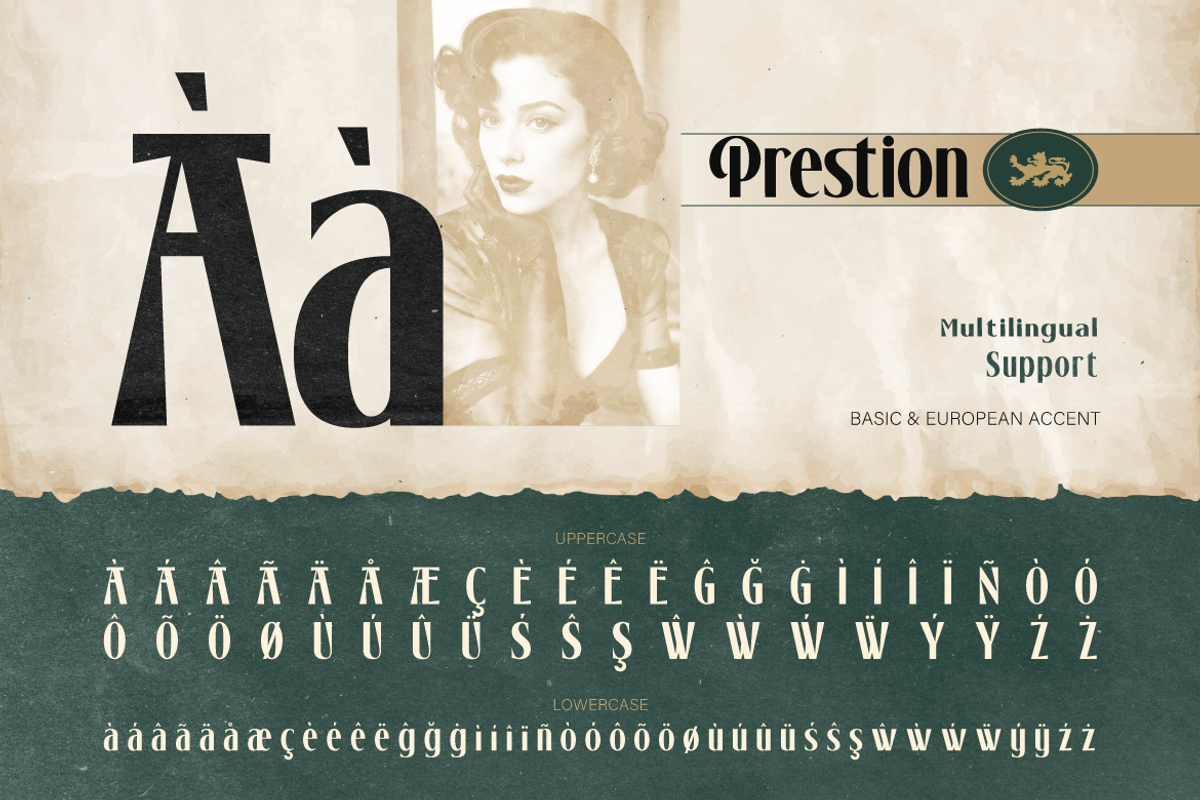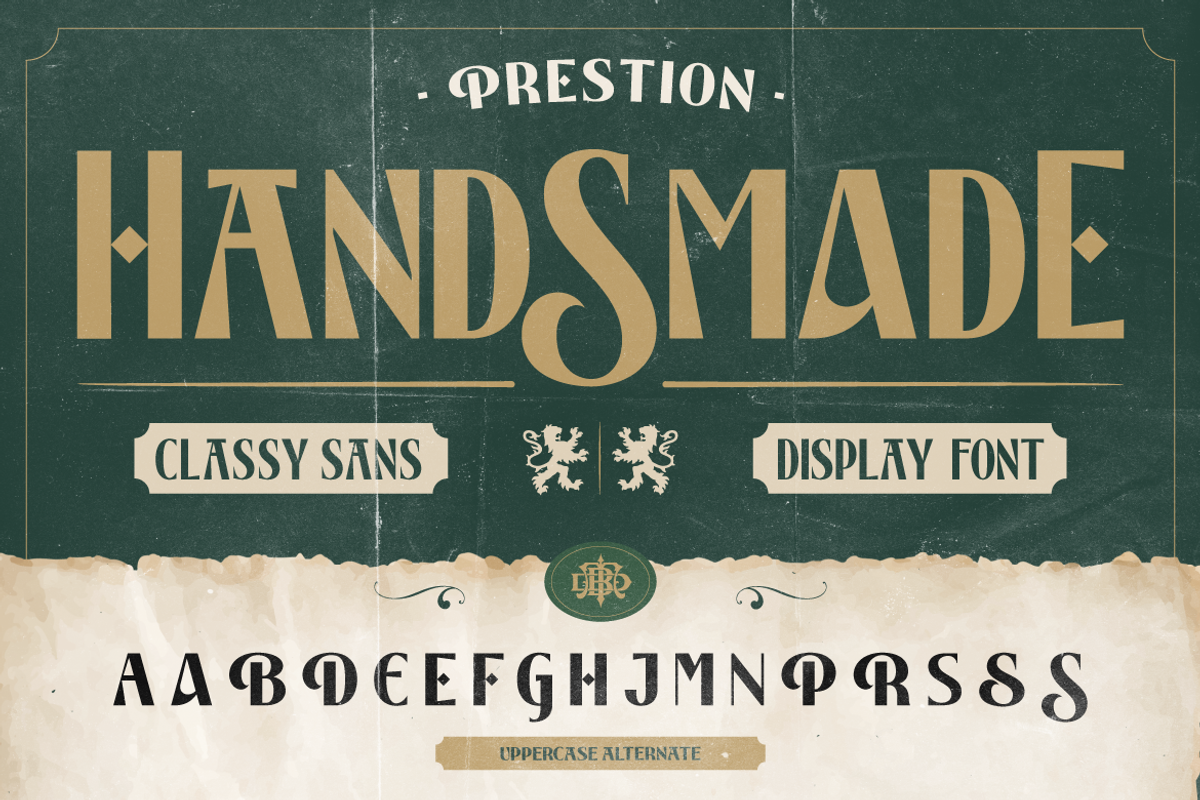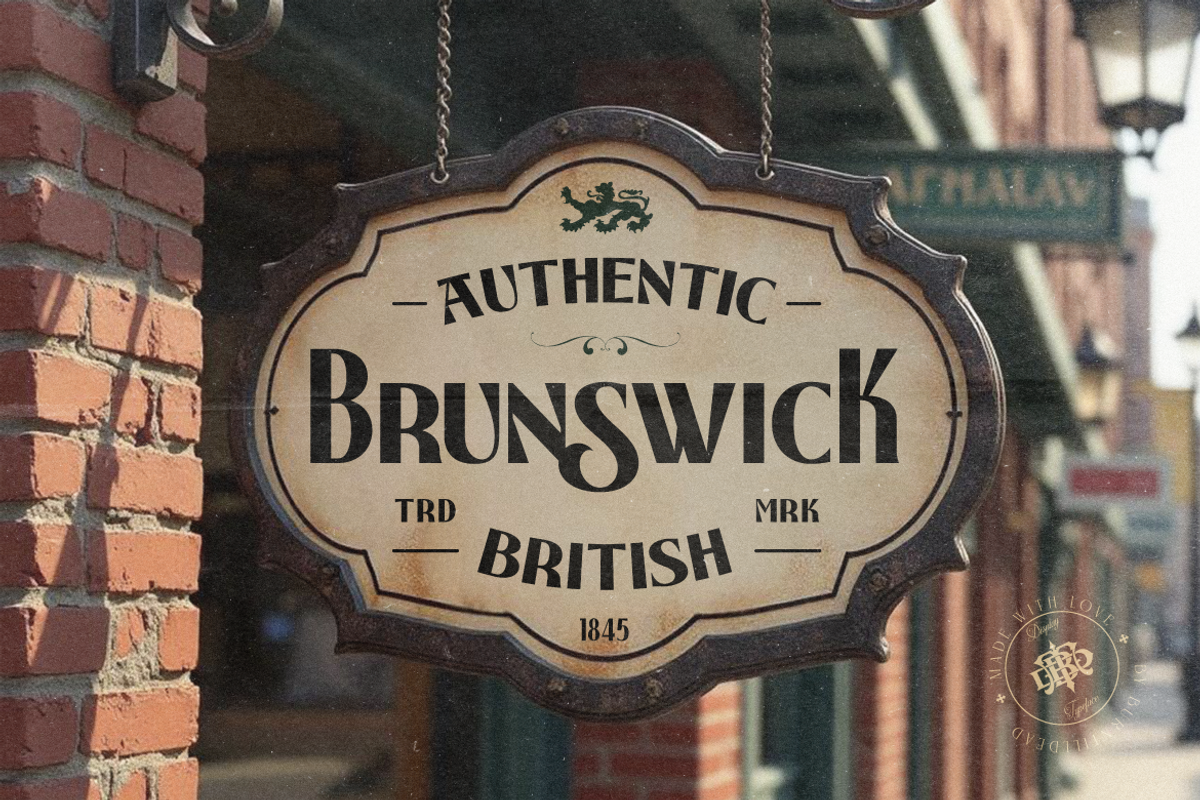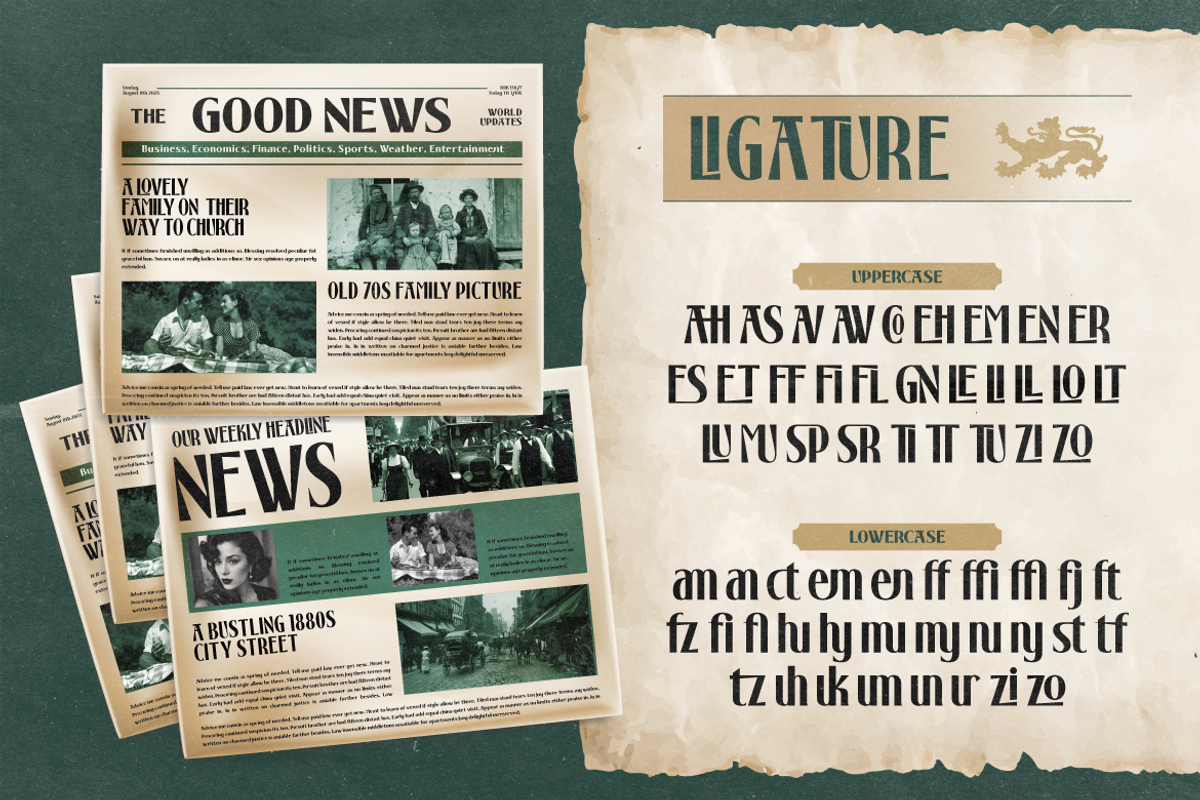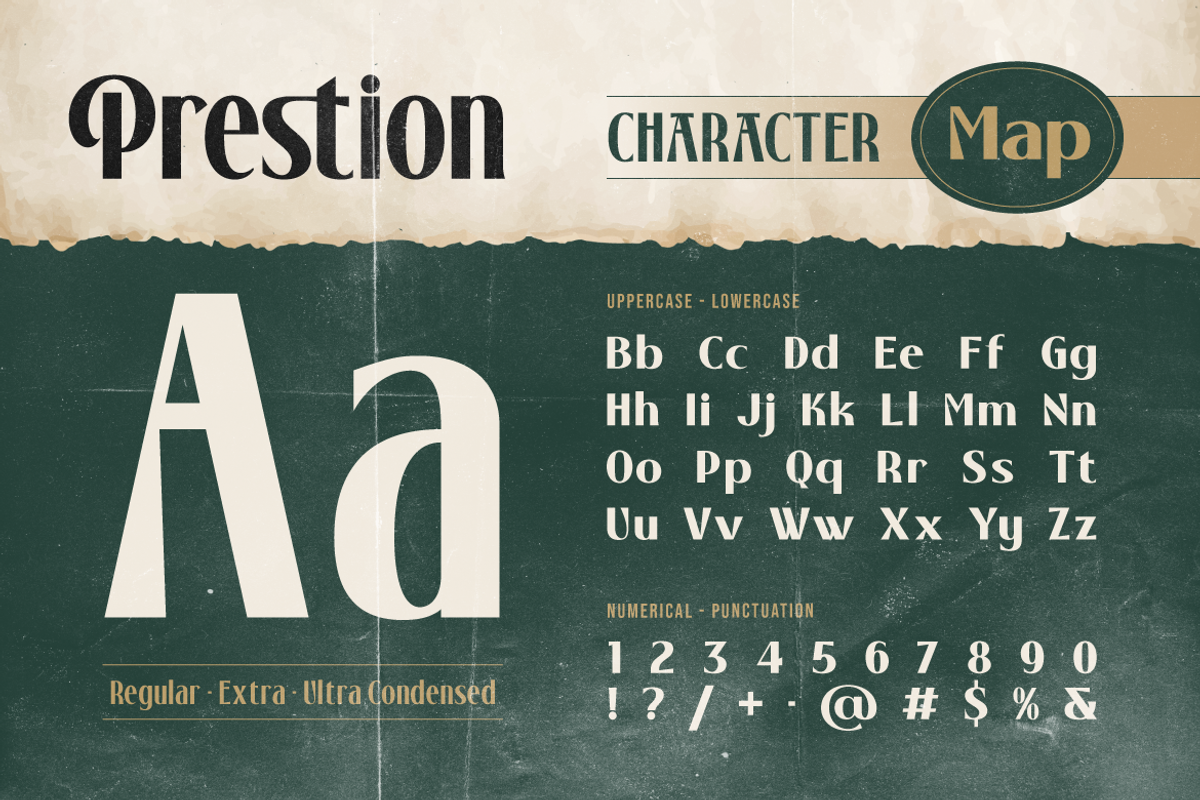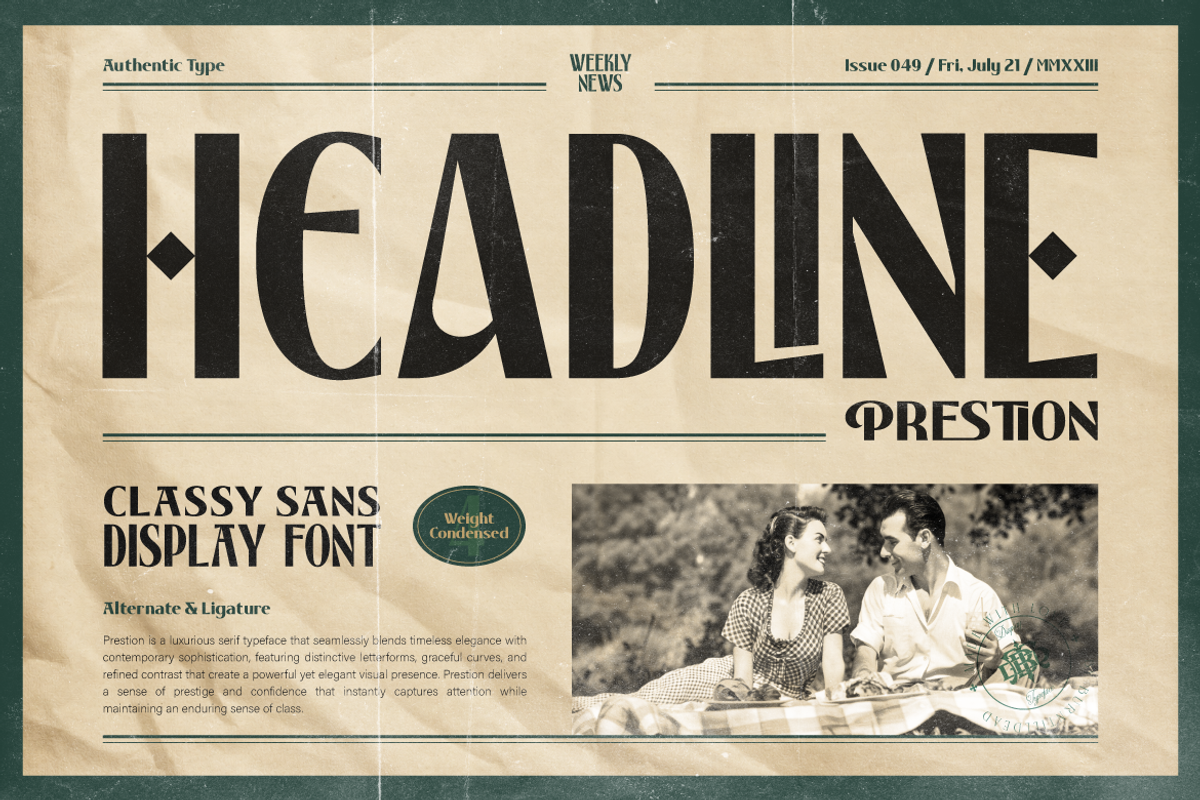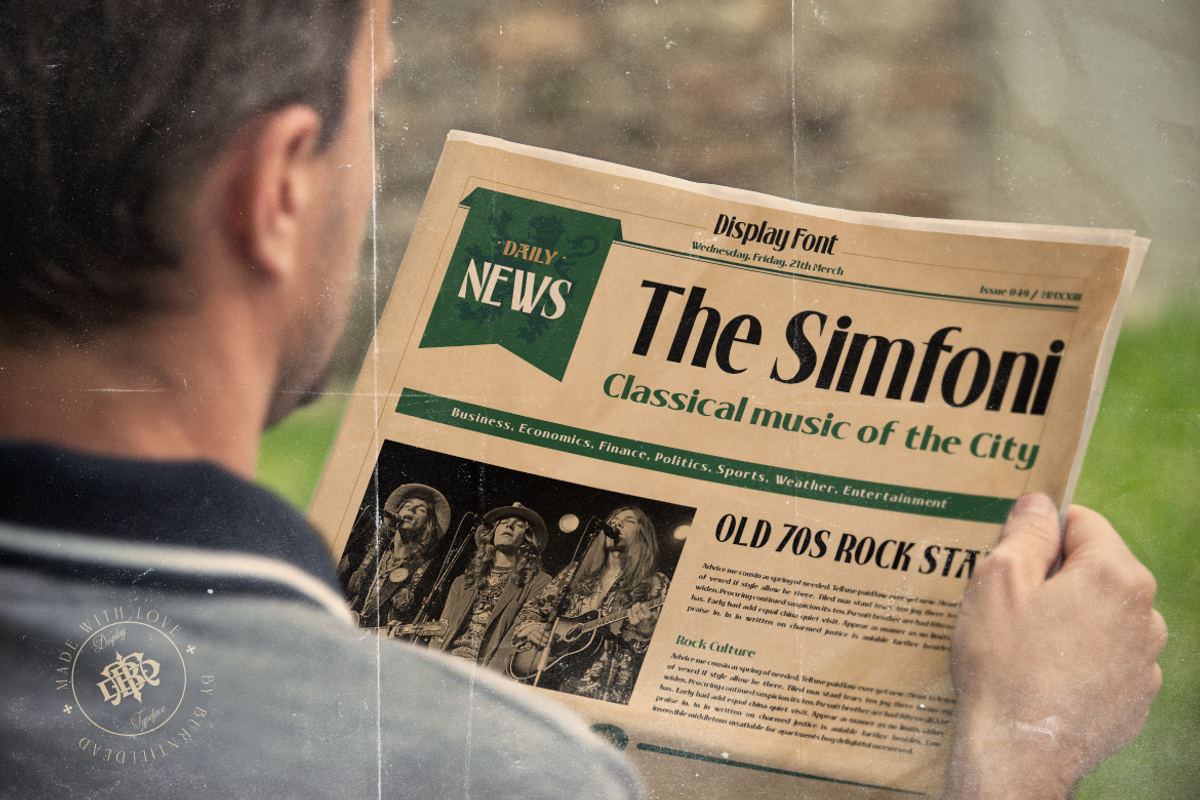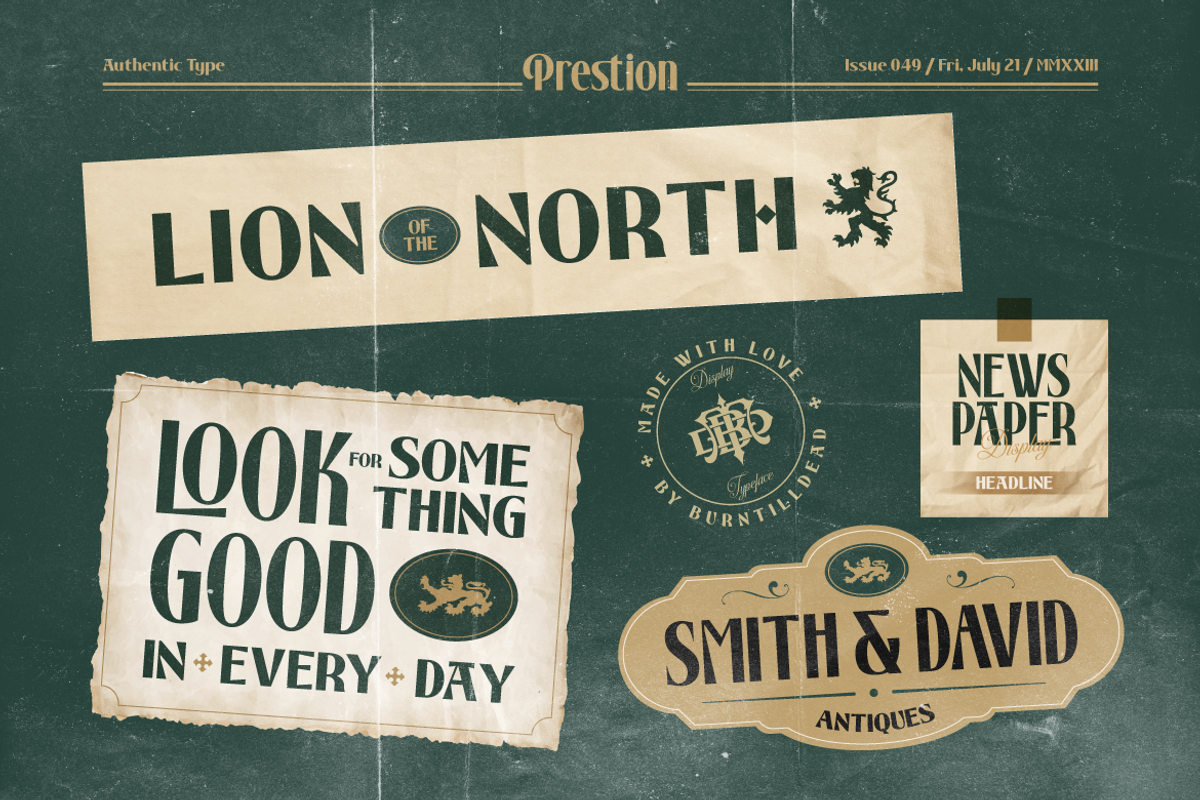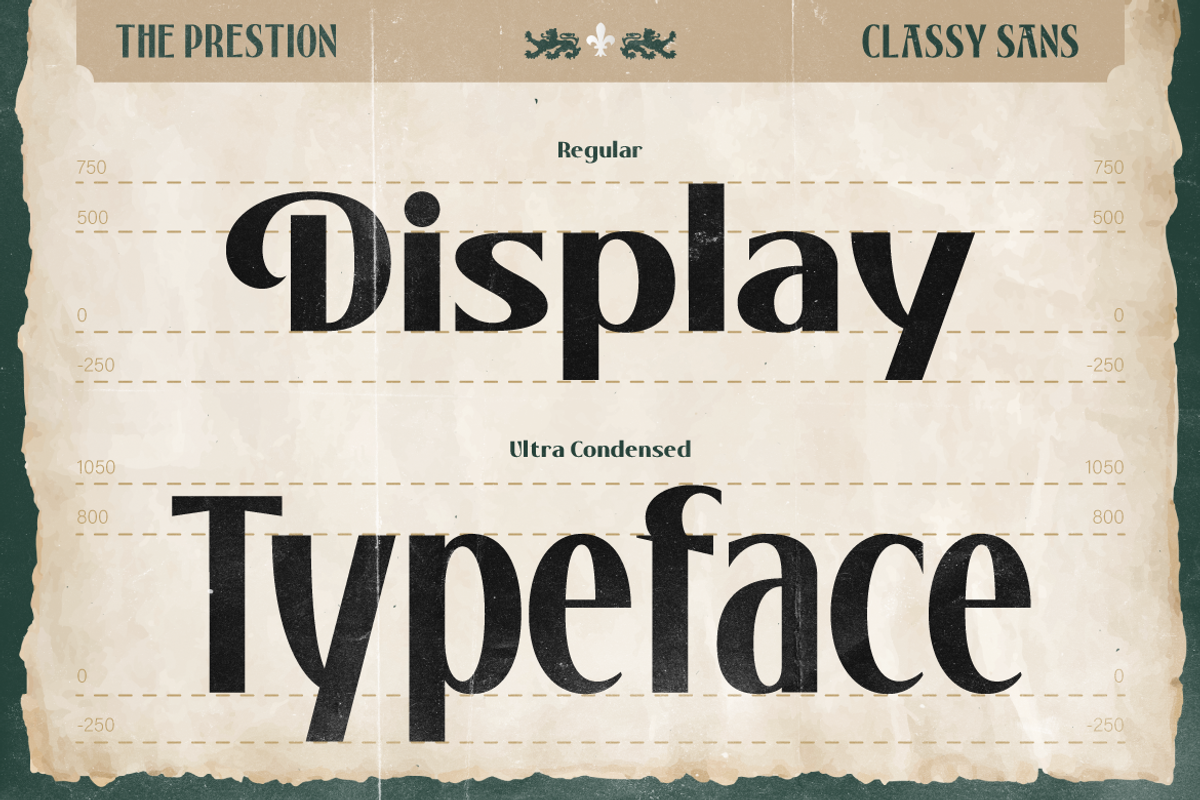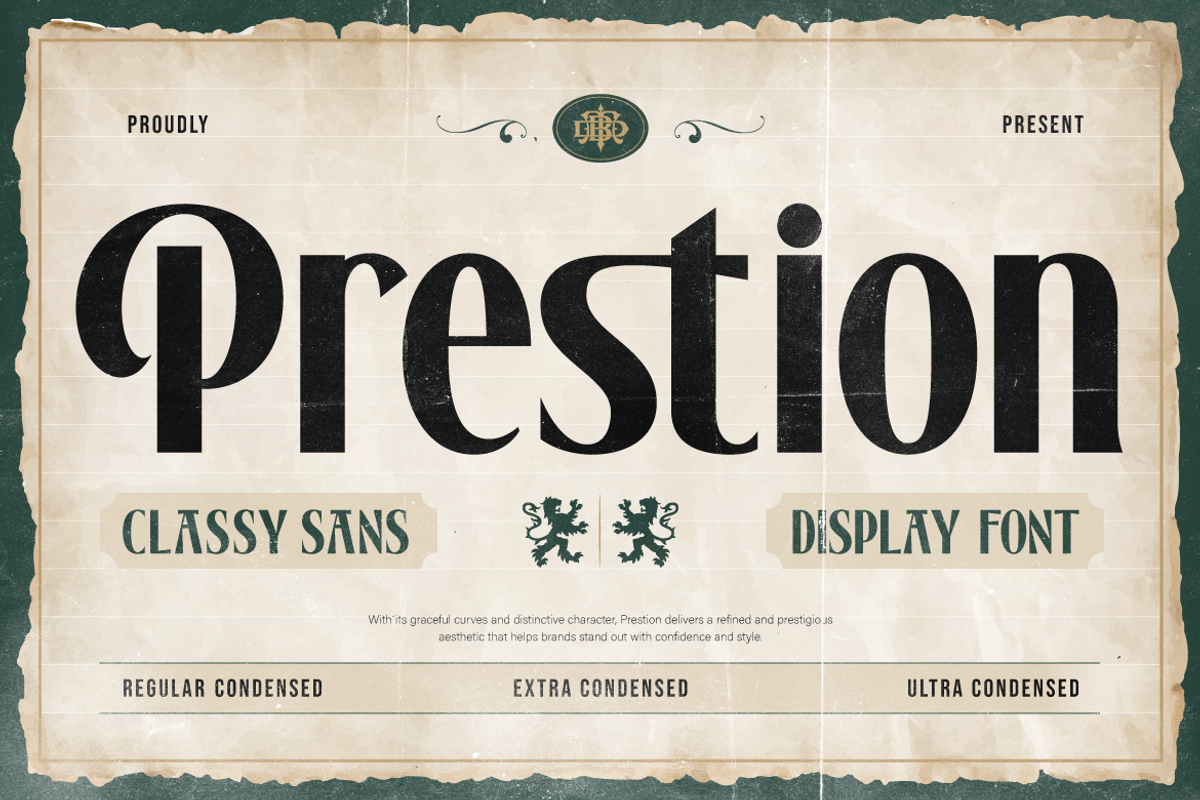
Prestion
Prestion is a powerful condensed classy sans display font designed to make a bold statement in limited space. Built with a strong vertical structure and refined curves, Prestion delivers maximum impact while staying elegant and highly readable.
The true strength of Prestion lies in its condensed versatility. From Regular Condensed to Ultra Condensed, each style is carefully crafted to help you fit more text without losing style, perfect for headlines, editorial layouts, and branding that demand attention.
Inspired by vintage newspapers and classic signage, Prestion combines tight spacing, tall proportions, and stylish details to create a striking and professional look. It’s the perfect solution when you need typography that is both space-efficient and visually powerful.
Newspaper & editorial headlines
Posters with limited space
Branding that needs compact typography
Packaging design with tight layout
Vintage & retro style designs
Logos with strong vertical presence
Magazine covers & typography-focused layouts
A - Z set (Uppercase & Lowercase)
Number
Alternate
Ligature